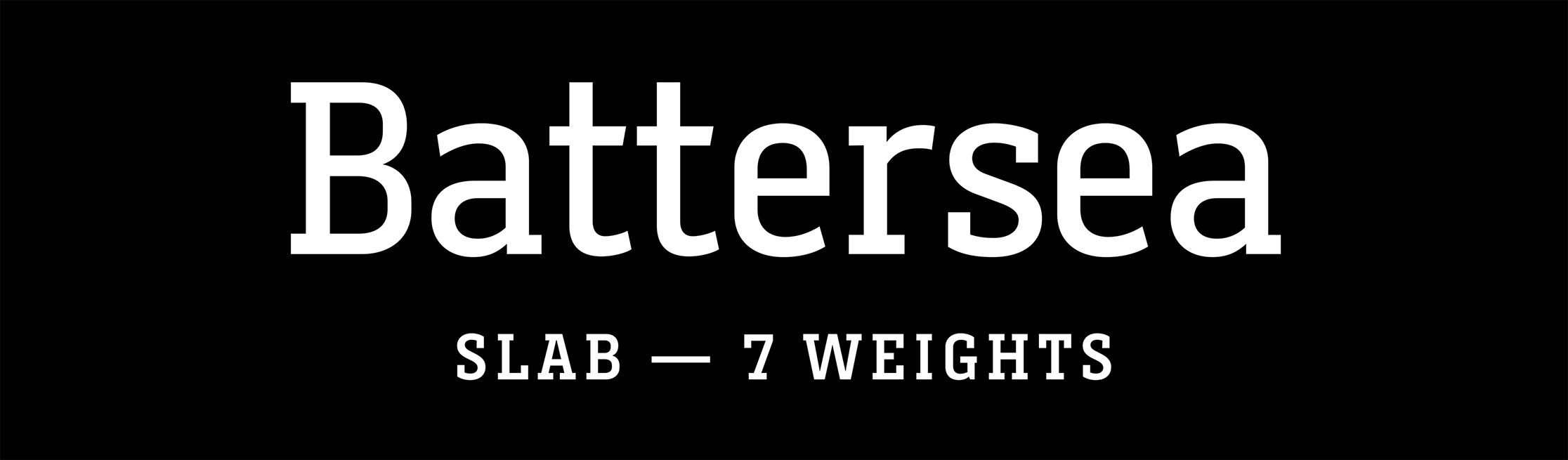
Battersea Slab Font
Battersea Slab Font is perfect for industrial design branding, urban architecture presentations, modern manufacturing companies, contemporary construction signage, robust engineering firms, progressive tech startups, bold editorial layouts, strong corporate identities, solid institutional communications, and powerful brand statements.
Battersea Slab Font creates excitement because it embodies the strength and reliability of industrial craftsmanship with its bold slab serif letterforms and construction-inspired character design. The font's sturdy proportions and engineered aesthetic instantly convey durability and professional competence, making any brand appear solid and authentically built to last. Its carefully crafted industrial details and structural character create an immediate sense of engineering excellence that captivates audiences seeking reliable solutions, robust quality, and products that celebrate the enduring power of strong construction and industrial precision.
The Battersea Slab Font family includes multiple weights and styles: Thin, Light, Regular, Medium, Bold, Black, Italic variants for each weight, Condensed, Extended, and Industrial versions. Each variant maintains the font's signature structural character while offering different levels of industrial strength and construction styling suitable for various engineering and manufacturing applications.